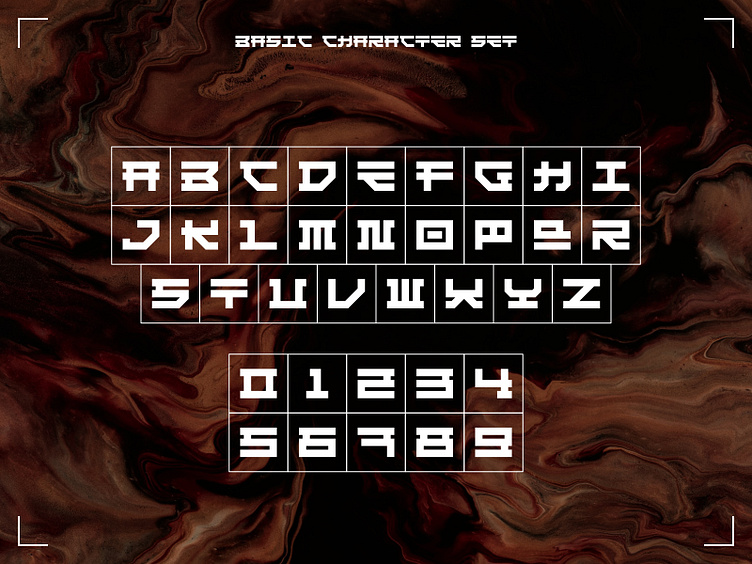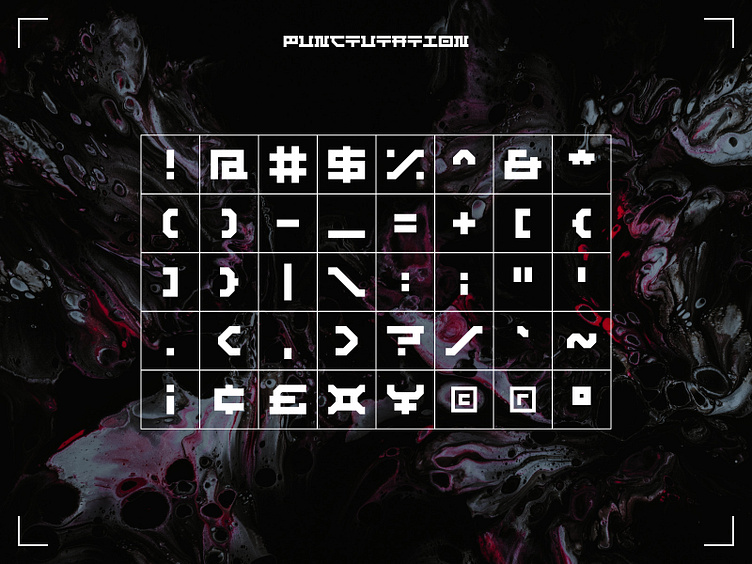
Ryomen 2.0 - Decorative Font
Ryomen is a modern and bold decorative font inspired by Japanese letters.
Currently, it has 104 characters including uppercase, lowercase, numbers, and many punctuations.